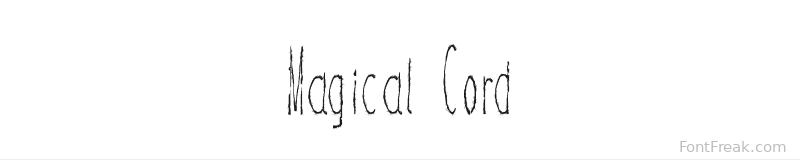
Magical Cord
Magical Cord by Galdino Otten Fonts is a unique decorative typeface that captures a whimsical, enchanting aesthetic. This font falls into the category of display typefaces, making it perfect for eye-catching designs that need to stand out. With its playful strokes and varying weight, Magical Cord exhibits a charming irregularity that adds character and warmth to any project. The contrast in stroke weight, combined with its slightly elongated letterforms, gives the typeface a fluid, organic feel, reminiscent of hand-drawn lettering.
Ideal for a variety of creative applications, the Magical Cord font shines in contexts such as wedding invitations, where its romantic and whimsical vibe can set the perfect tone. It’s also a great choice for children's book covers, adding an element of fun and imagination. Additionally, this font works well for branding purposes, especially for businesses in the arts, crafts, or eco-friendly sectors, as it conveys creativity and a personal touch. Restaurant menus that wish to evoke a cozy, inviting atmosphere can also benefit from the charming appeal of Magical Cord.
What truly sets the Magical Cord font apart is its ability to evoke a sense of nostalgia and wonder, making it perfect for designs that aim to tell a story or create a memorable impression. For those looking to explore its enchanting style, the Magical Cord font free download is an excellent opportunity to add this delightful typeface to your design toolkit.